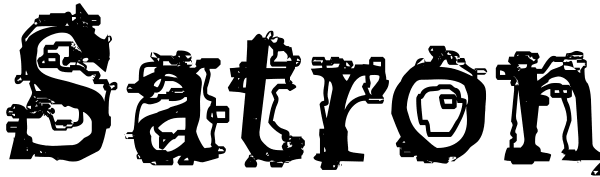
Satron
A reminder of the days of flower power, Satron is quite a bit different, slightly hippy and slightly grungy. Although it is not in any way an attempt to emulate the fonts used in that era, it evokes the mood of the time. There's two different shapes...
Satron
Satron Jumbled